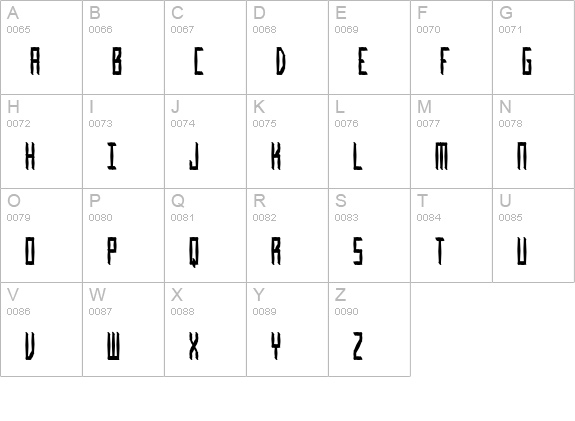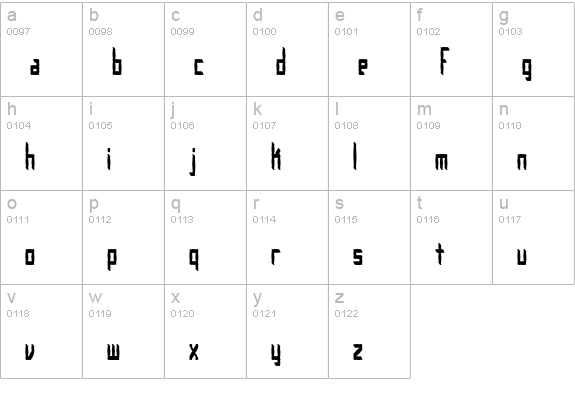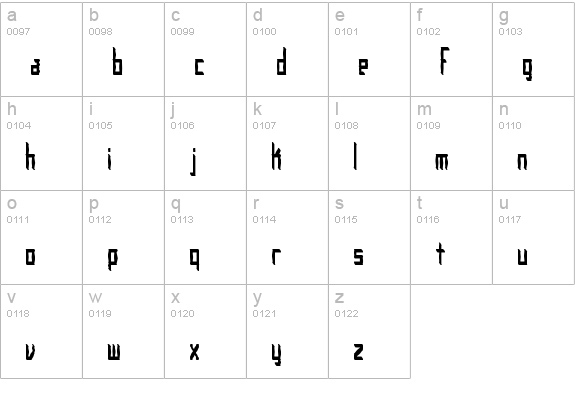
Inevitable BRK Font Details
Introducing the Inevitable BRK font, a captivating typeface that effortlessly combines modern sophistication with timeless elegance. This font is a true testament to the artistic genius of its creator, showcasing a harmonious blend of bold lines and delicate curves. Its meticulously crafted letterforms exude an air of confidence and poise, making it the perfect choice for any design project that aspires to leave a lasting impression. What sets the Inevitable BRK font apart is not only its remarkable aesthetic appeal, but also its accessibility. This font is freely available to download at FontsMarket.com, making it a valuable asset for both professional designers and enthusiasts alike. Whether you're working on a logo, packaging, or editorial design, the Inevitable BRK font offers a versatile range of styles and weights that will effortlessly adapt to any creative vision. The Inevitable BRK font is a true embodiment of versatility, effortlessly transitioning from bold headlines to elegant body text. Its clean and legible design ensures optimal readability across various mediums and sizes, guaranteeing a seamless user experience. With its wide array of characters and language support, this font allows you to effortlessly communicate your message to a global audience. The timeless appeal of the Inevitable BRK font lies in its ability to effortlessly blend into any design concept, enhancing the overall visual impact. Whether you're aiming for a modern and minimalist look or a classic and sophisticated aesthetic, this font will effortlessly complement your creative vision. In conclusion, the Inevitable BRK font is a stunning typographic masterpiece that seamlessly combines contemporary design with timeless elegance. It is freely available to download at FontsMarket.com, ensuring that anyone can access its beauty and unleash their creativity. Embrace the inevitable and elevate your designs with the Inevitable BRK font.